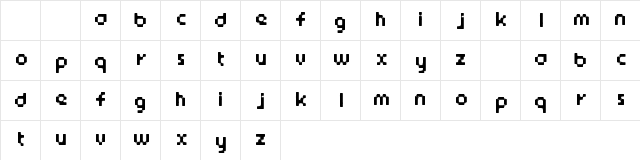
Style: Sticky bits v2
Foundry: Lander De Wandel
Designer: Lander De Wandel
Design Context for Sticky bits v2
Sticky bits v2 is a composed and adaptable typeface that performs quietly and consistently across a wide range of design contexts.